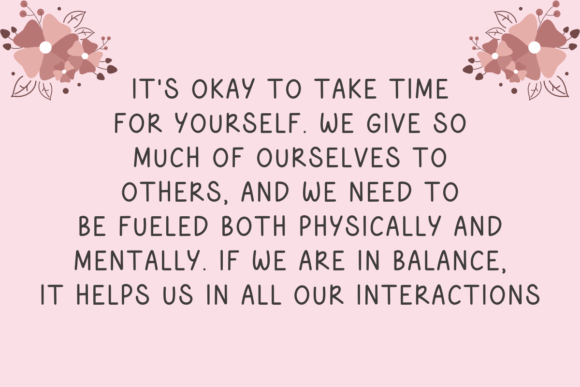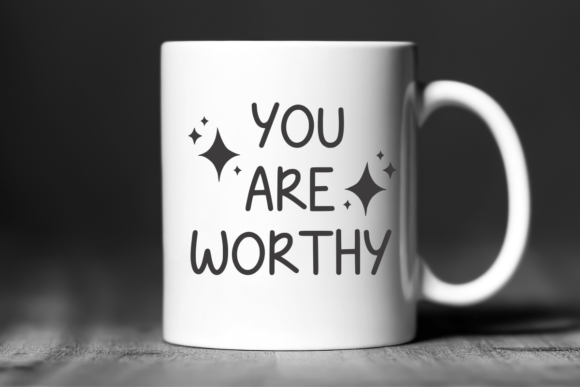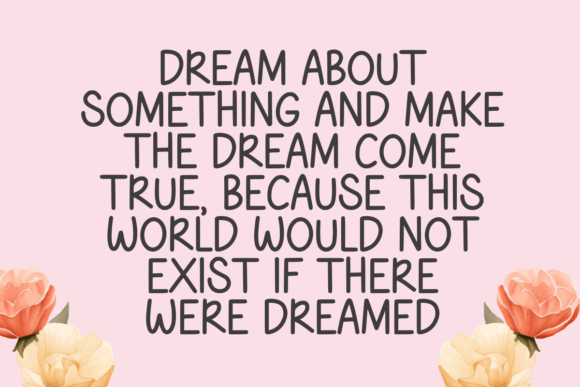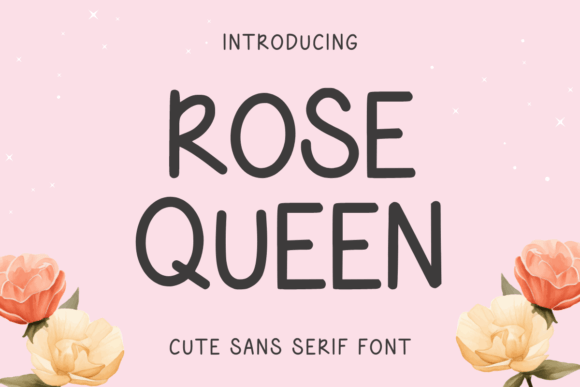
Introduction to Rose Queen Font
Rose Queen is a cute and fun handwritten font with a feminine touch and natural, playful strokes.
It includes uppercase, lowercase letters, and punctuation This versatile font is perfect for journals, scrapbooks, stickers, planners, quotes, women’s t-shirts, grocery lists, Canva projects, and many other creative ideas.
Key Features of Rose Queen Font
Why Choose Rose Queen Font?
Rose Queen Font offers exceptional quality and versatility, making it a valuable addition to your design toolkit. Whether you’re creating for personal projects or commercial use, Rose Queen Font delivers professional results.